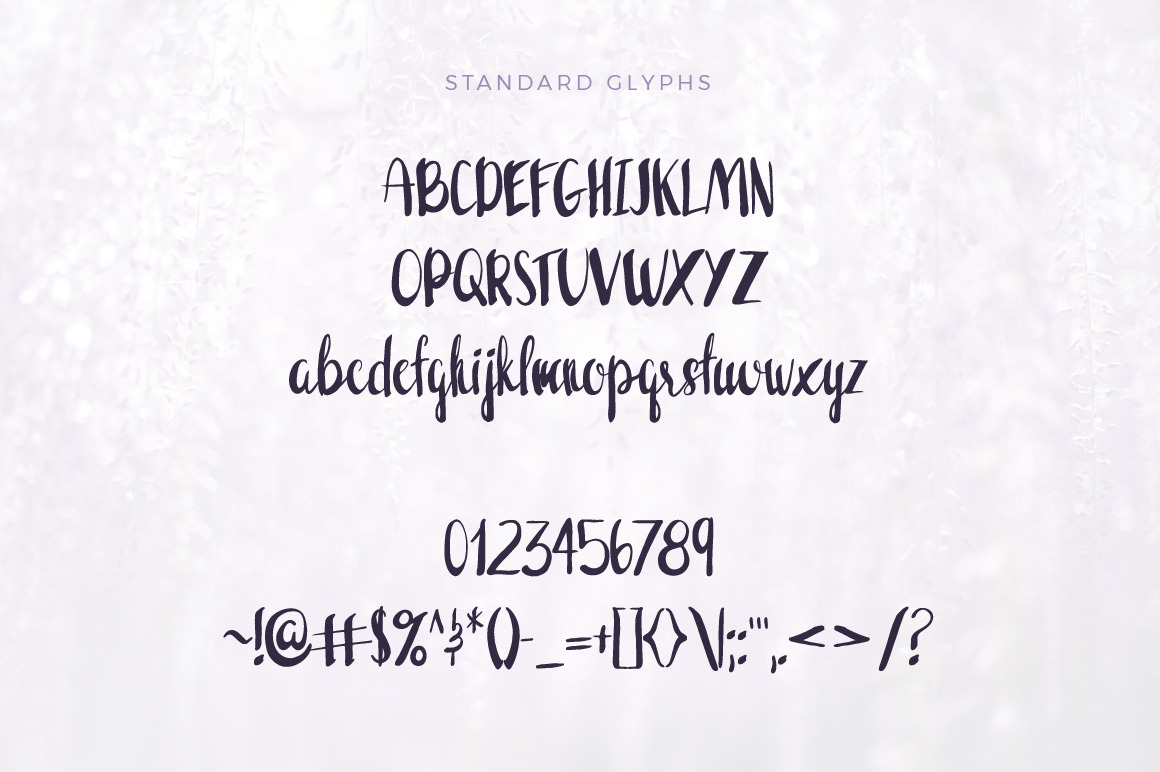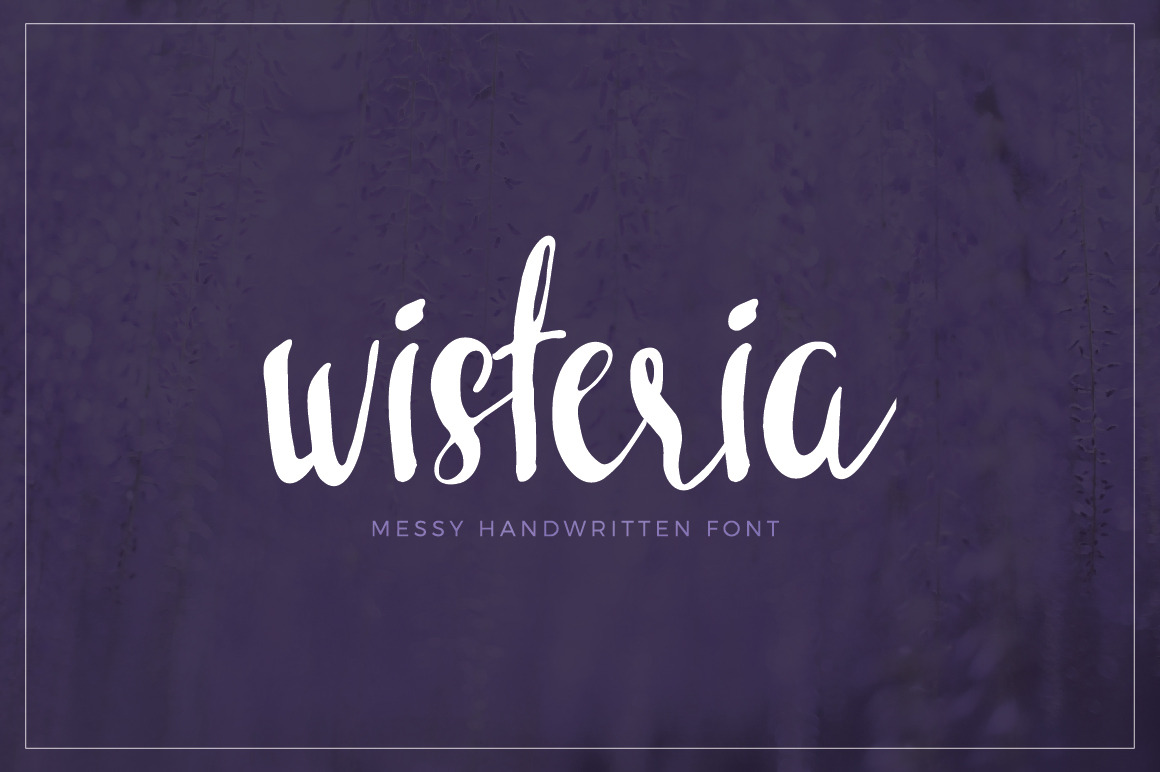
Wisteria Handwritten Font
Introducing Wisteria, a messy, organic, hand-lettered brush script font. Feel free to use this for both personal and commercial use.